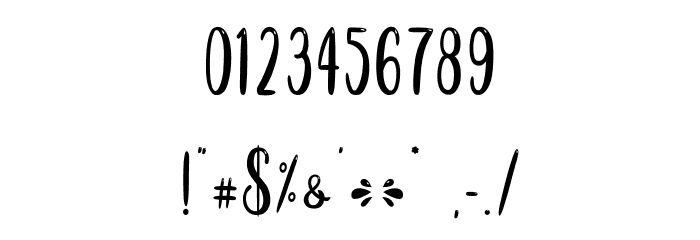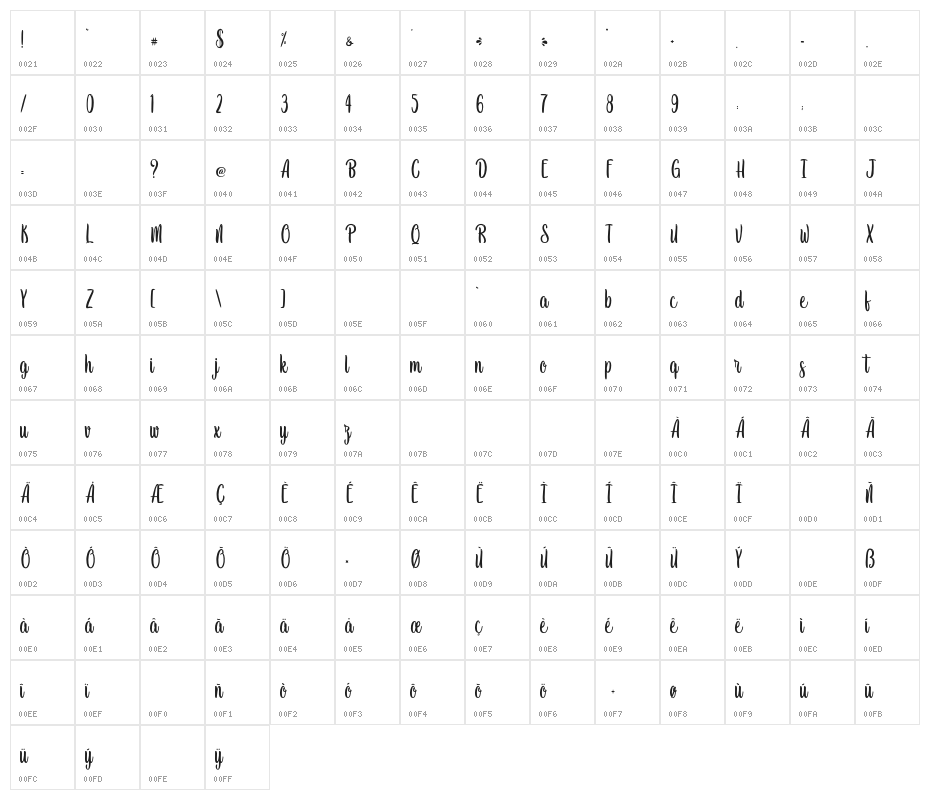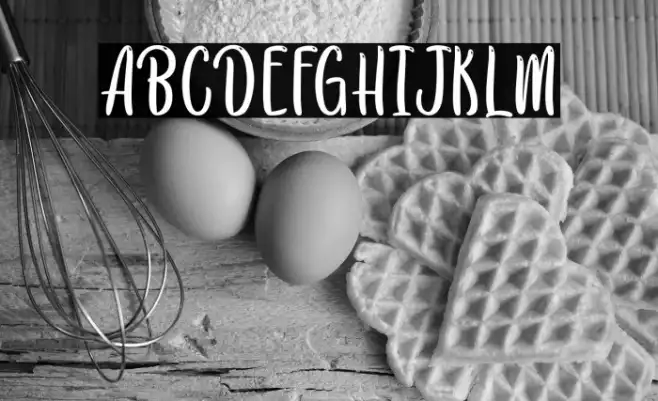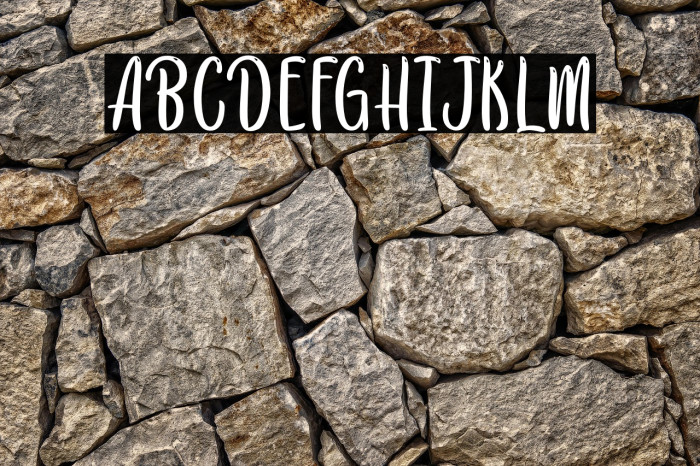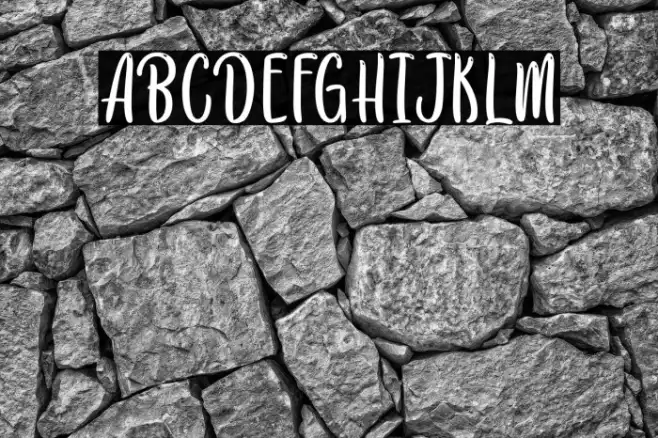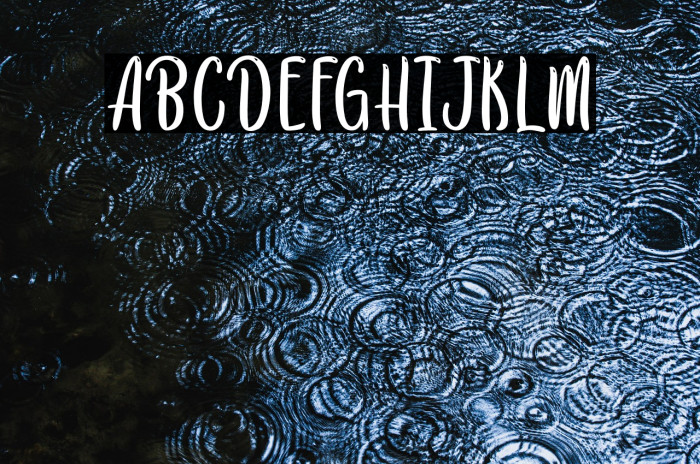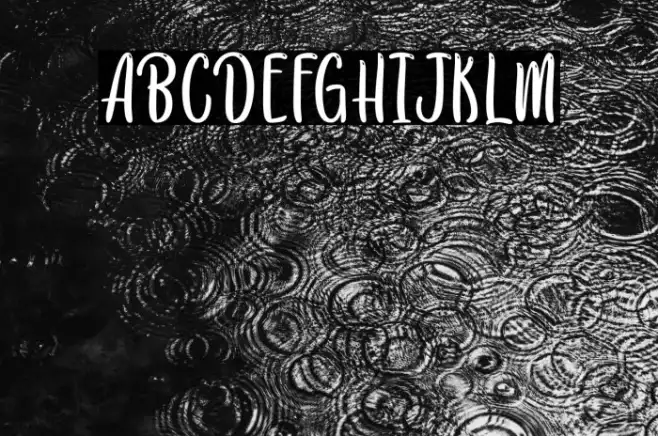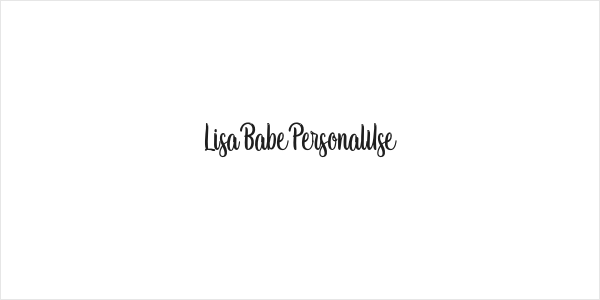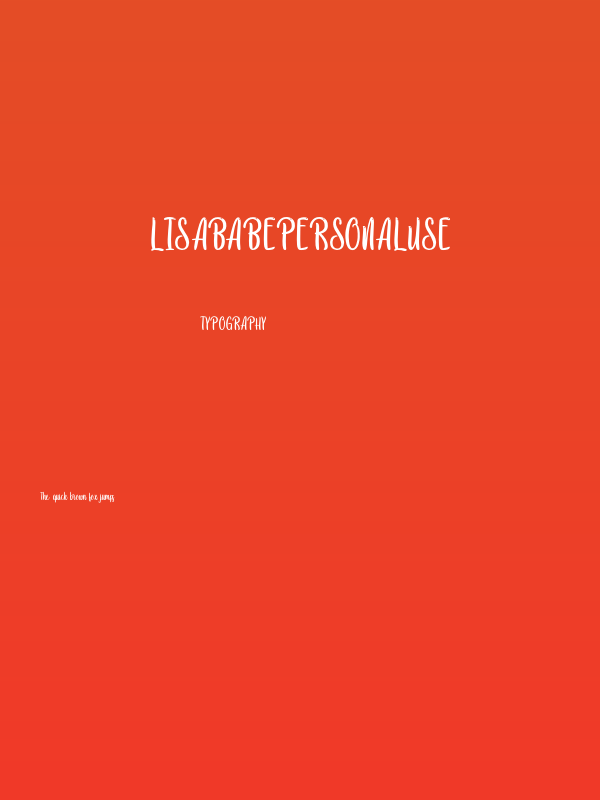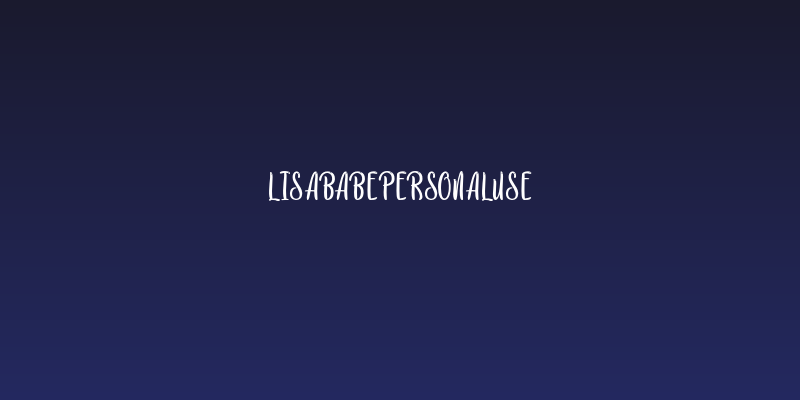
LisaBabePersonalUse Font
LisaBabePersonalUse Description
This font features a playful and whimsical style, characterized by its bold and flowing script. The uppercase letters are tall and slightly narrow, with a consistent stroke width that gives them a sturdy appearance. The lowercase letters maintain the same playful nature, with some letters featuring loops and curls that add to the font's charm. The numbers are clear and easy to read, matching the style of the letters. The special characters are well-integrated, maintaining the overall aesthetic. This font is ideal for projects that require a touch of fun and creativity, such as invitations, posters, and branding materials.